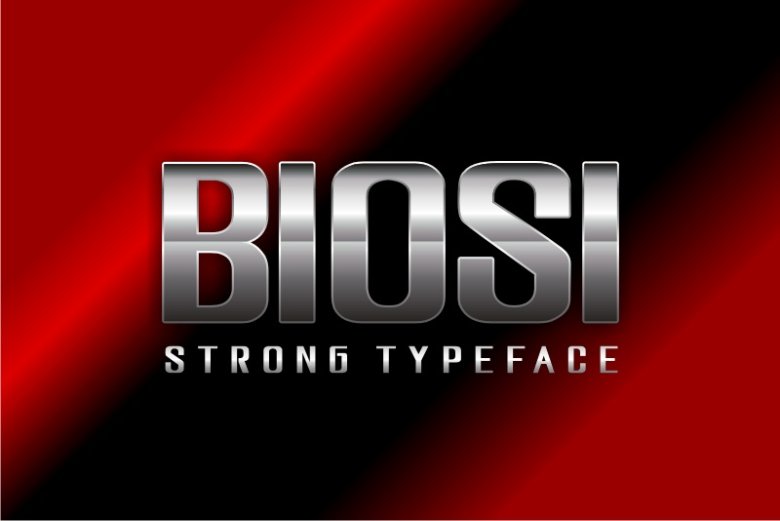
Biosi Font
Biosi is a high quality Sans Serif font that is designed by herulogo and is available for free download and personal use. The free version provides all uppercase and lowercase letters and a few special characters too.
Biosi Sans Serif Font